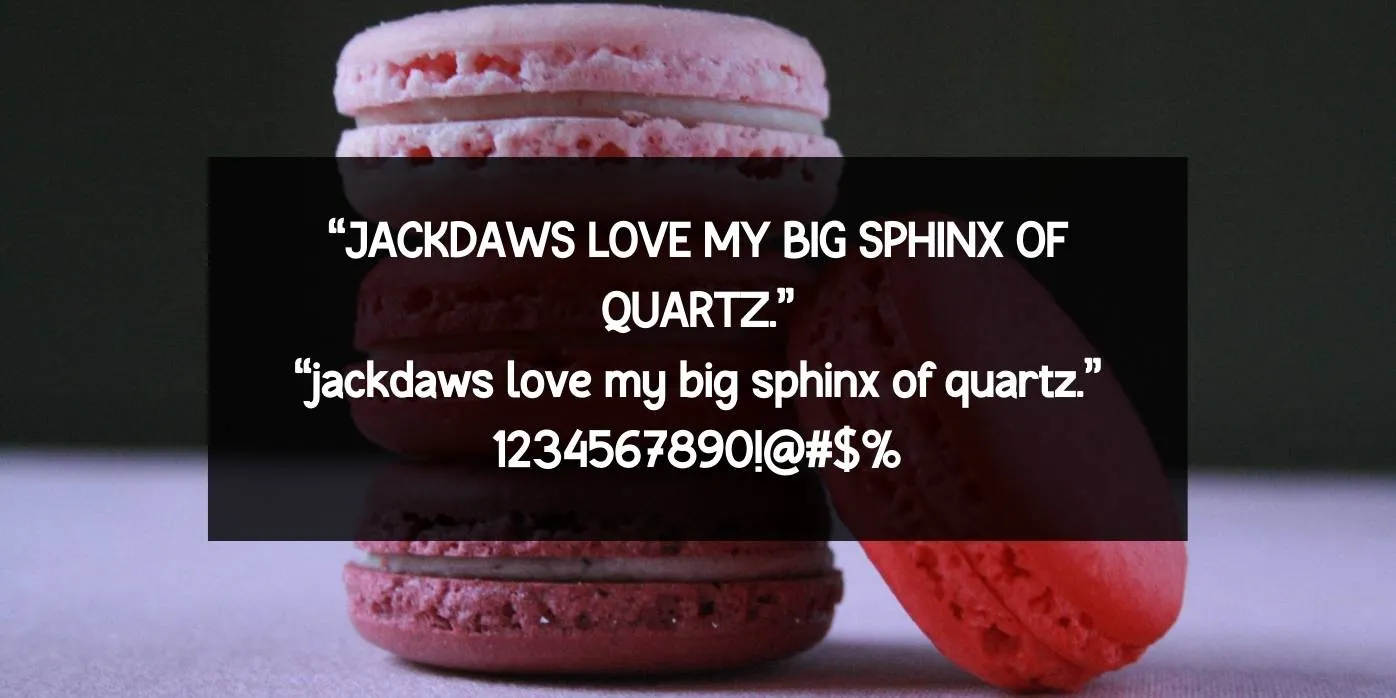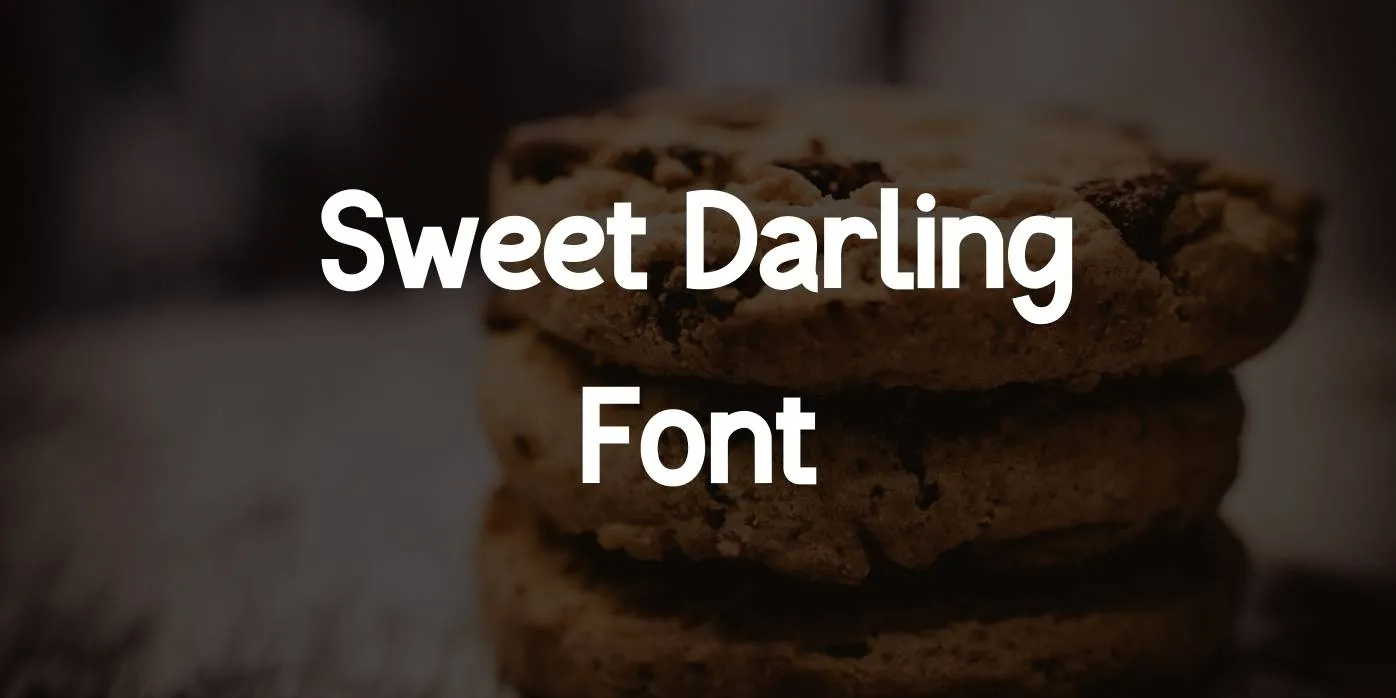
Sweet Darling Font
In this typeface, we present a classic typeface known as Sweet Darling Font. This typeface belongs to the sans serif family. It is a basic font that is available in three styles. The sweet darling typeface has been created by a designer named Jonathan S.
Harris. This typeface was released on September 25th, 2009. This typeface is perfect for those who are looking for a simple and elegant sans serif font. This awesome font includes regular, bold, and italic styles.
It also includes support for Latin, Cyrillic, and Greek languages. Another similar font which is archivo font is perfect for different designs. The Sweet Darling Font is a great choice for those who are looking for a versatile sans serif typeface. It can be used for both body text and headlines.